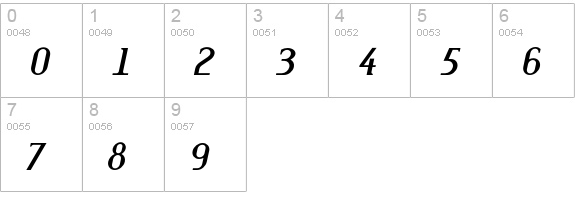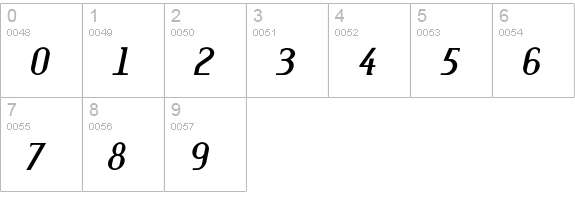
Maverick-MediumItalic Font Details
The Maverick-MediumItalic font is a stylish and versatile typeface that exudes sophistication and modernity. Its medium weight and italic slant add a touch of elegance to any design project, making it perfect for both digital and print applications. With its clean lines and distinctive letterforms, Maverick-MediumItalic is sure to make a statement and capture the attention of viewers. What sets this font apart is that it is available for free download at FontsMarket.com, making it accessible to designers and creatives looking to enhance their work with a high-quality typeface. Whether you're working on branding, advertising, editorial design, or any other creative project, Maverick-MediumItalic is a fantastic choice that will elevate your designs and leave a lasting impression. Get your hands on this exquisite font today and take your projects to the next level!